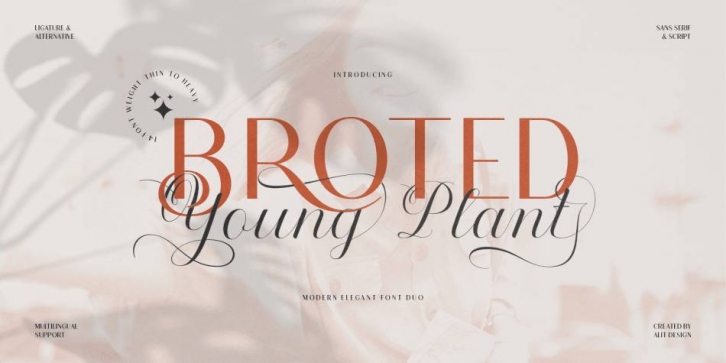
Designed by Alit Suarnegara, Broted Young Plant is a sans serif and script font family. This typeface has fifteen styles and was published by Alit Design.
Introducing Broted Young Plant Font Duo.
Unique and fantastic duo fonts combined or they stand alone.
Broted Young Plant Sans Serif font family consists of 14 families, from Thin to Heavy style. The elegant modern font creates a unique design and is sure to steal the eye of the design target audience. Besides being unique, the Broted Young Plant Sans Serif font also has a luxury simple character that makes the design charming and luxurious.
Broted Young Plant Script is a signature script that has cool strokes. The line shape of Broted Young Plant Script is inspired by a unique elegant style. In addition, Broted Young Plant Script has an altenate ligature that looks natural and not stiff.
Combining the two Broted Young Plant Script and Sans serif fonts will create a design that is charming, unique, elegant and cool. you can see from the design preview.
These two fonts are perfect for designs with the concept of elegant, luxury, romance, fashion and so on.